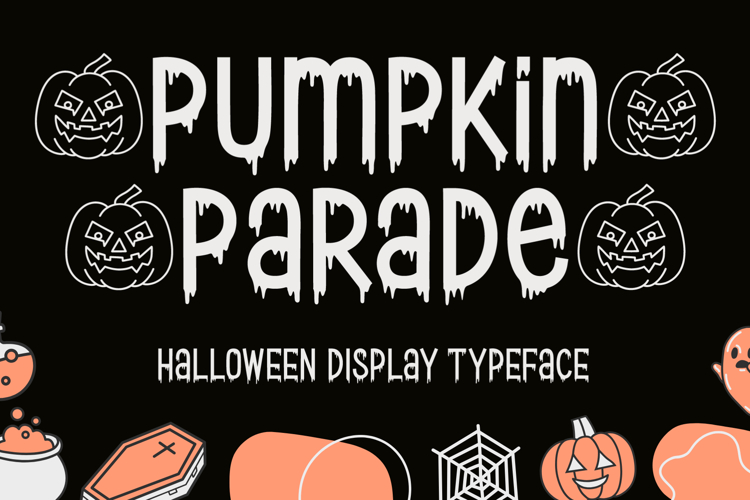
Pumpkin Parade - A Halloween Font
Bring your Halloween creations to life with Pumpkin Parade, a festive display font inspired by pumpkin patches, costume parties, and moonlit adventures. Each character features decorative dripping accents that create a spooky yet cheerful appearance, making the font ideal for seasonal projects that need a bold visual impact.
Pumpkin Parade works beautifully for large titles, posters, signage, party invitations, and social media graphics. The tall structure and decorative details help titles and headlines attract attention while adding a sense of fun and excitement.
Designed to embrace the spirit of Halloween, Pumpkin Parade combines playful horror elements with a clean and approachable style. From trick-or-treat promotions to autumn festival branding, this font helps create designs that feel festive, memorable, and full of seasonal magic.